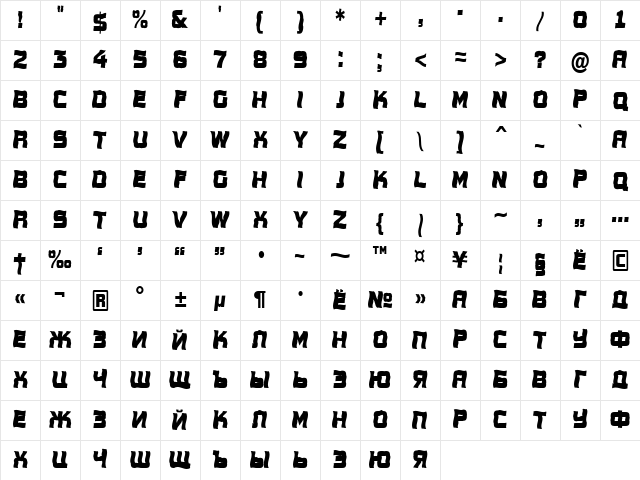
Complete a_ConceptoTitulNrWv Medium glyph index. Displaying only characters natively supported by a_ConceptoTitulNrWv Medium font.
a_ConceptoTitulNrWv is a composed and adaptable typeface that performs quietly and consistently across a wide range of design contexts.